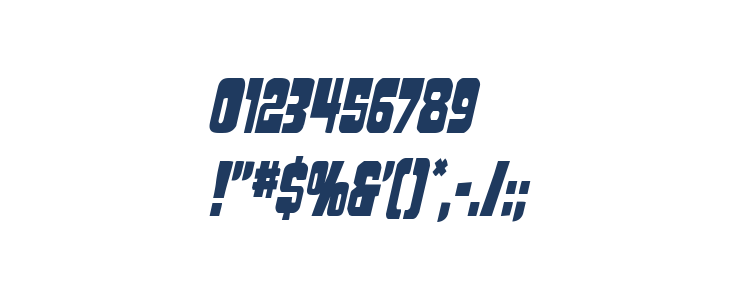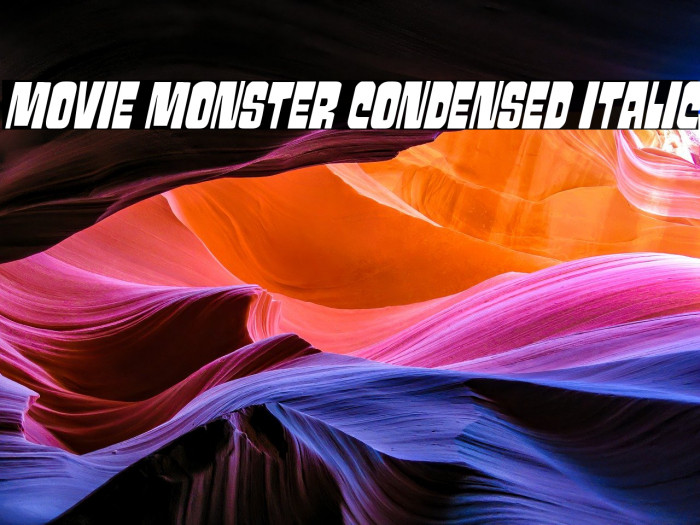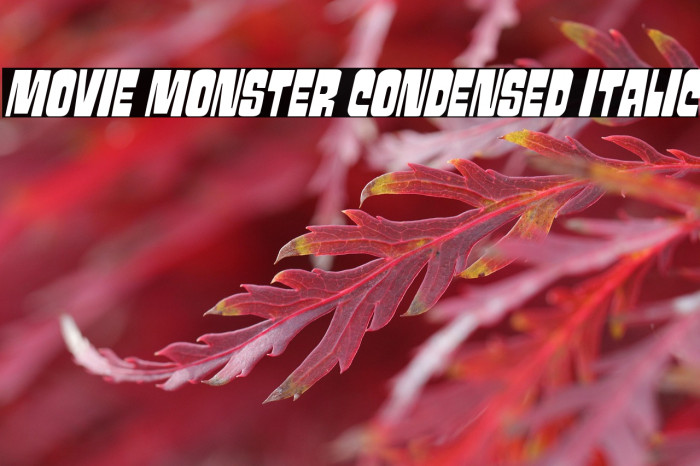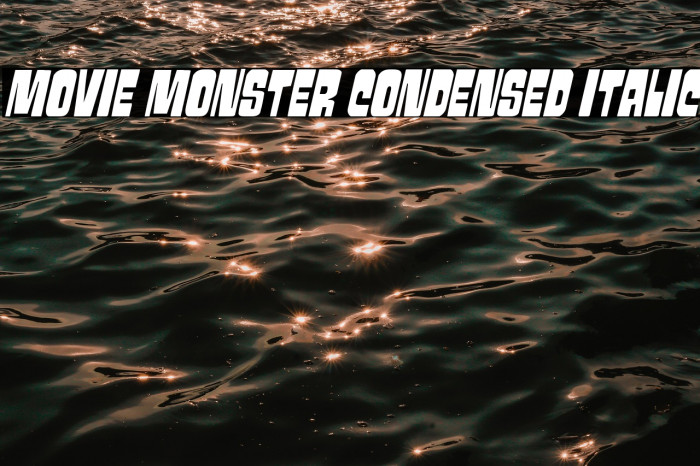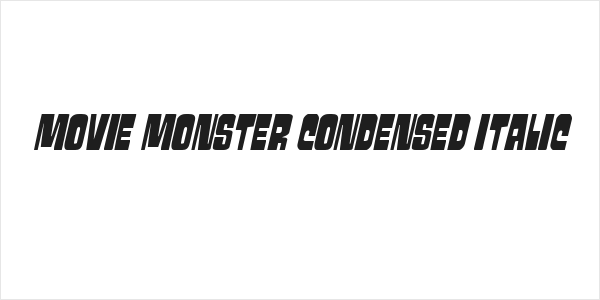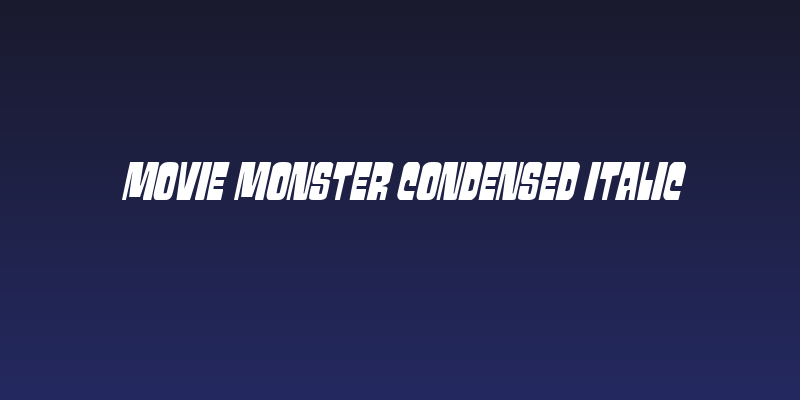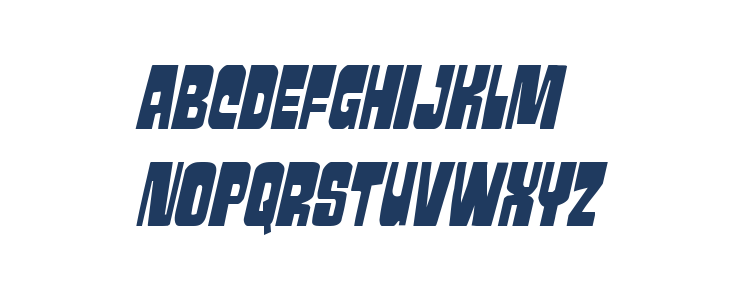
Movie Monster Condensed Italic Font
Movie Monster Condensed Italic Description
This font features a bold and dynamic style with a strong presence. The letters are condensed and italicized, giving them a forward-leaning, energetic appearance. The strokes are thick and uniform, contributing to a high-impact visual impression. The characters are tightly spaced, enhancing the compact and powerful look. This font is ideal for projects that require a bold statement, such as movie posters, headlines, or branding materials. The design is modern and assertive, making it suitable for contemporary themes.
| Proposed Projects | Ideal for movie posters, headlines, branding, and any project needing a bold statement. |